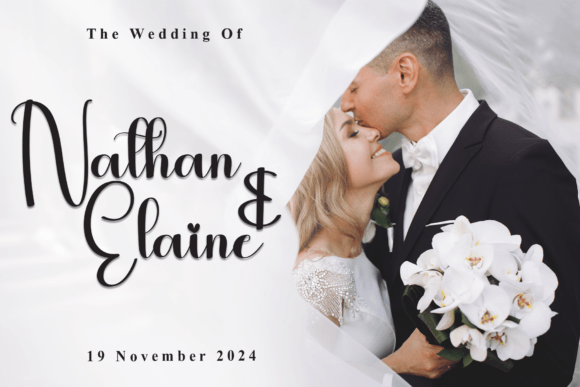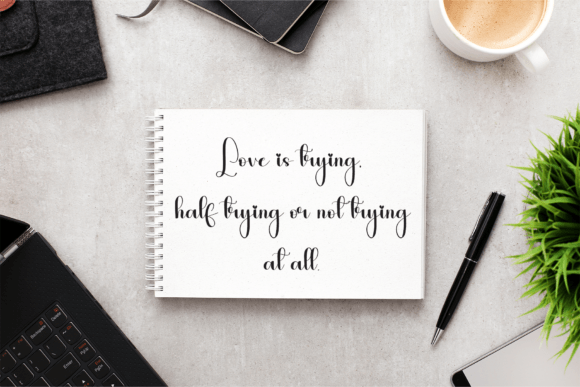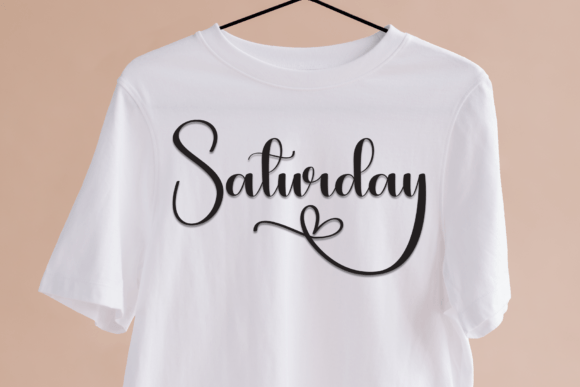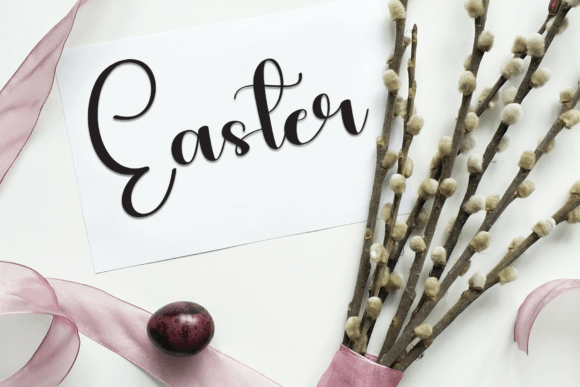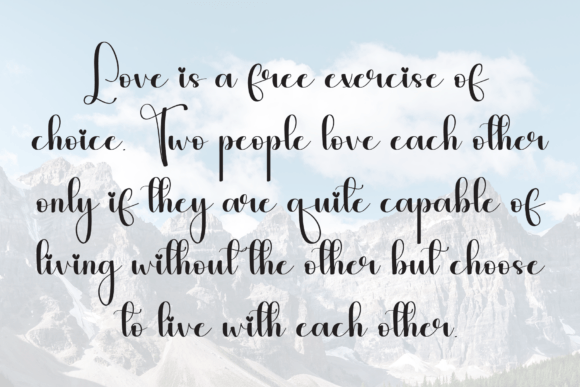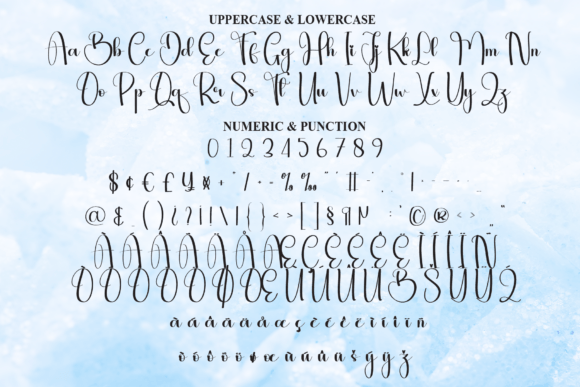
A Charming Addition to Your Design Toolbox
Do you remember the feeling of excitement and joy when you were a kid, crafting handmade cards and gift tags for your loved ones? The simple act of adding a personal touch to a design can bring a smile to our faces and make the world a more beautiful place. As designers, we strive to capture that same essence in our work, and today, I’m thrilled to introduce you to a charming addition that will make your designs stand out: the delightful Better Frosty Font.
This warm and whimsical handwritten display font is perfect for lending a touch of fun and friendliness to any design project. Whether you’re creating wedding invitations, greeting cards, or just need a playful vibe, Better Frosty Font is the perfect companion. Its unique character will bring a touch of personality to your work, making it truly special and memorable.
Better Frosty Font Key Features
- Font Family: Better Frosty Font is a unique, high-quality font family consisting of 6 styles (Thin, Light, Regular, Medium, Bold, and Black).
- Unique Characteristics: Better Frosty Font features a distinctive, frosty aesthetic with intricate details, making it perfect for winter-themed designs, invitations, and advertisements.
Designer Review: Better Frosty Font
Overall, I was impressed with the Better Frosty Font, and here’s what I liked about it: ✨ It’s perfect for winter-themed projects, offering a clean and modern take on traditional frosty fonts. ✨ The font is highly customizable, allowing for easy color adjustments and style tweaks. ✨ The font’s crisp lines and subtle texture give it a premium feel that’s hard to find in other frosty fonts.
However, there are a few limitations that kept me from giving it a full 5-star review: ⚠️ The font is not suitable for small text sizes, as the lines can become blurry and hard to read. ⚠️ The font’s bold weight can look a bit too heavy for some designs, so be sure to adjust the font size accordingly.
Here are some specific features that I loved and didn’t love:
- Loved: Highly customizable with a wide range of color options
- Loved: Perfect for winter-themed projects and festive designs
- Didn’t love: Not suitable for small text sizes
- Didn’t love: Bold weight can look heavy in some designs
Overall, I would recommend the Better Frosty Font to anyone looking for a clean, modern, and highly customizable frosty font for their winter-themed projects.
Tips for Getting the Most Out of “Better Frosty Font”
Use “Better Frosty Font” to create eye-catching titles and headings in your designs.
Combine “Better Frosty Font” with bold and italic styles to add emphasis to your text.
Experiment with different font sizes and colors to achieve a unique and personalized look.
Common Use Cases for “Better Frosty Font”
Use “Better Frosty Font” for winter-themed designs, such as holiday cards and gift tags.